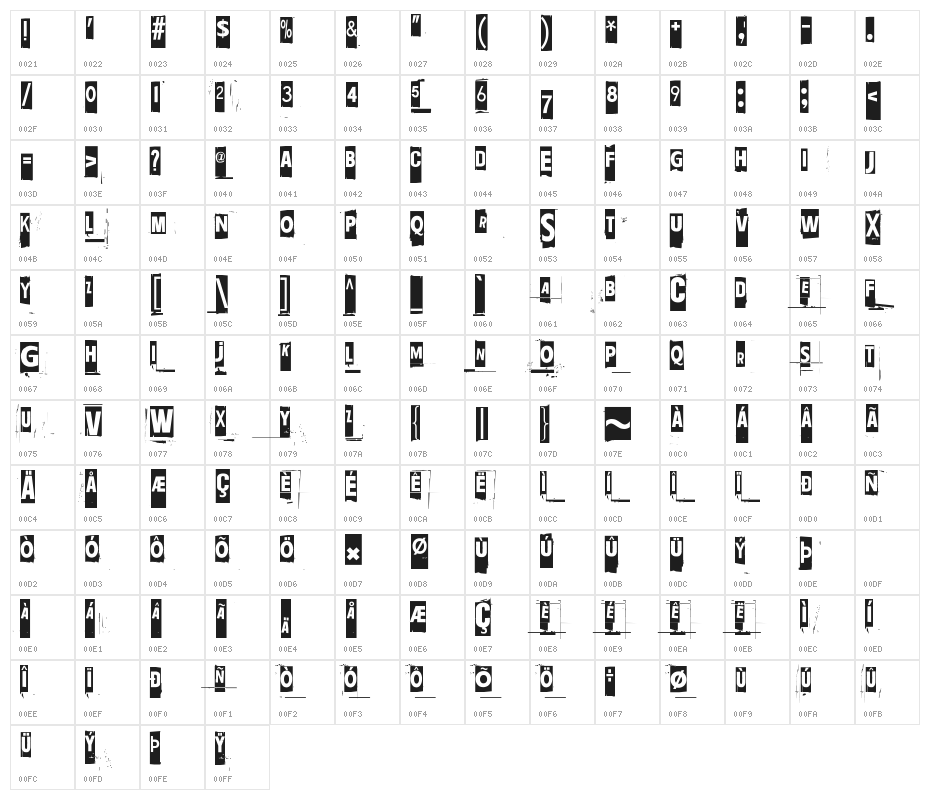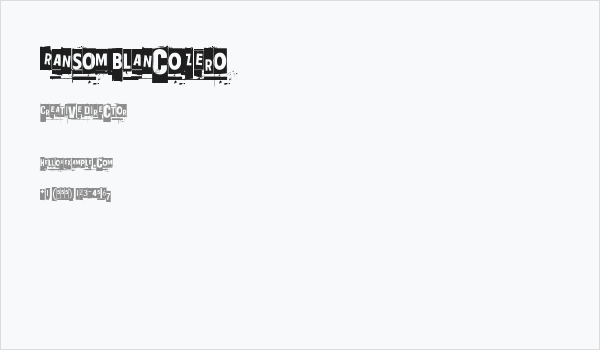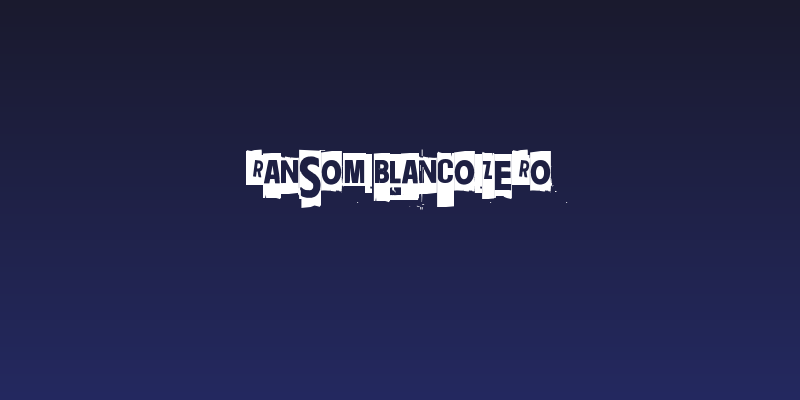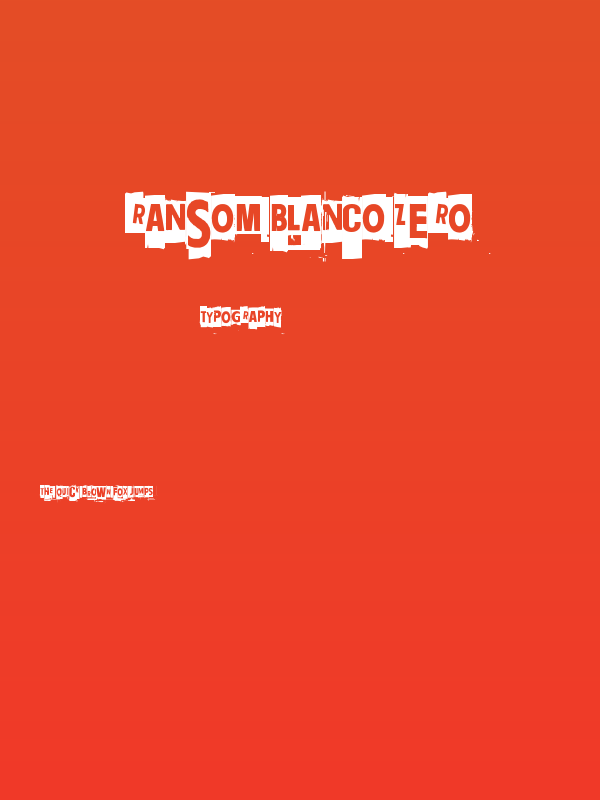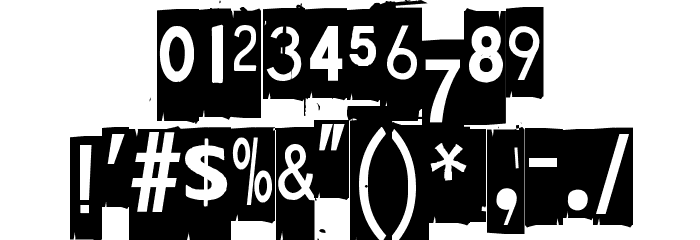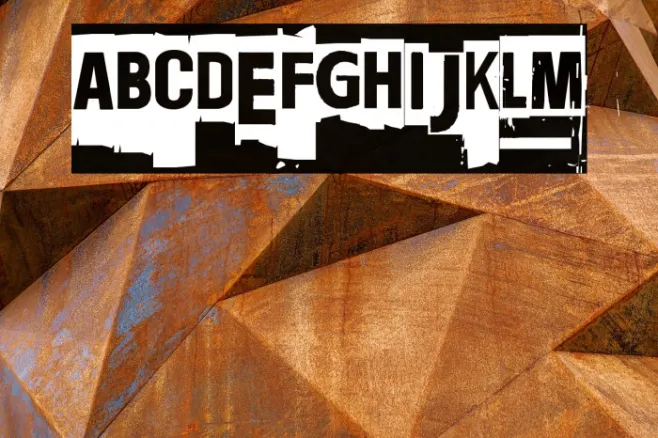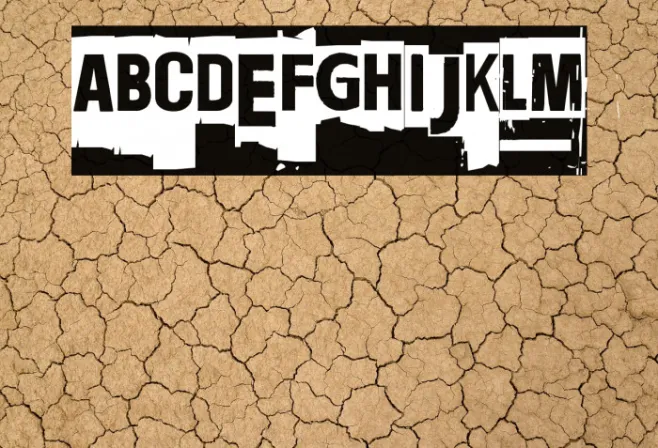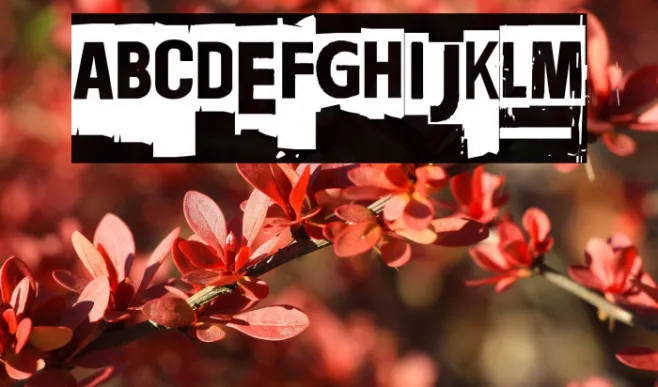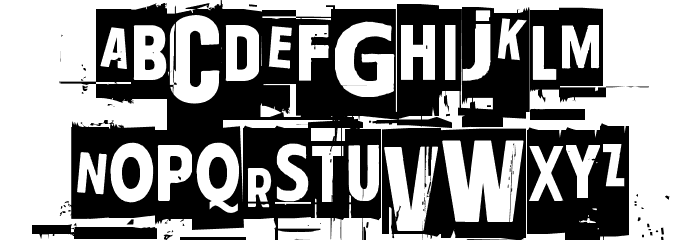
Ransom Blanco Zero Font
Ransom Blanco Zero Description
This font features a distinctive, cut-and-paste style reminiscent of ransom notes, with each character appearing as if it has been individually clipped from a magazine or newspaper. The letters and numbers are set against irregular, black backgrounds, adding to the chaotic and edgy aesthetic. The uppercase and lowercase letters, along with numbers and special characters, are all uniquely styled, contributing to a sense of randomness and unpredictability. This design is perfect for projects that require a bold, unconventional look, capturing attention with its stark contrast and dynamic presentation.
| Use Case | Headlines, Posters, Album Covers |
| Proposed Projects | Ideal for edgy posters, album covers, horror-themed designs, or any project needing a striking, unconventional look. |